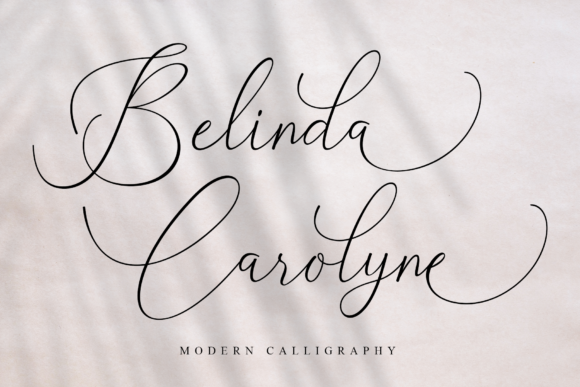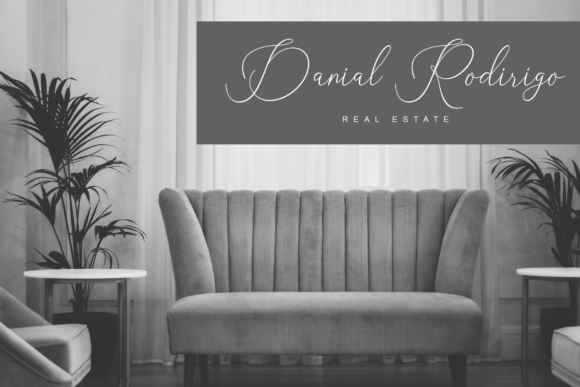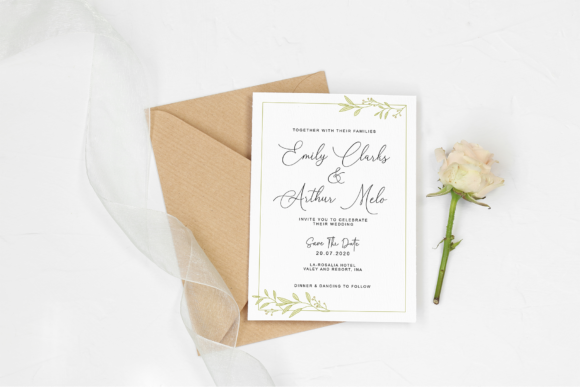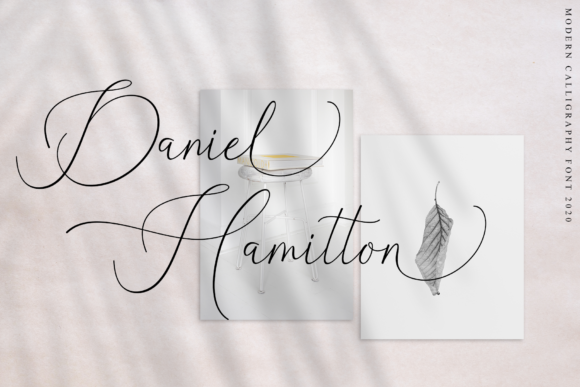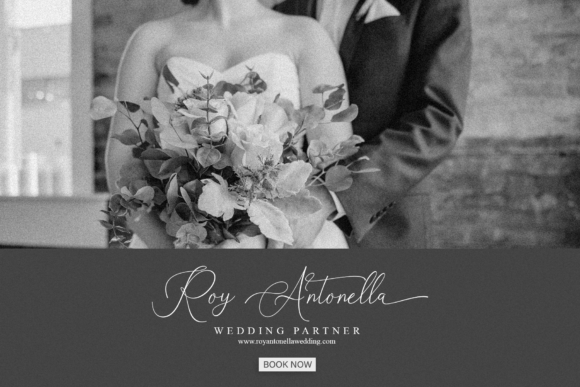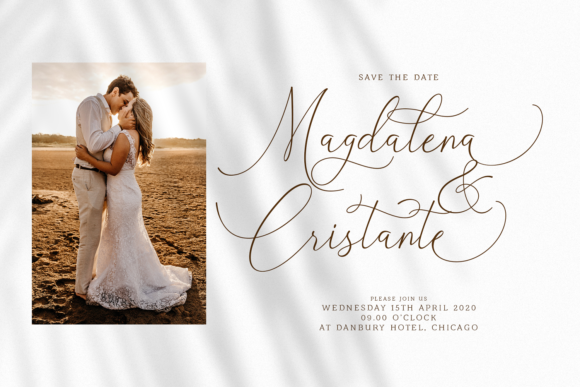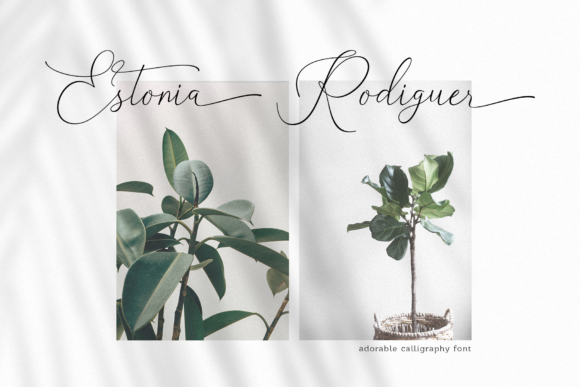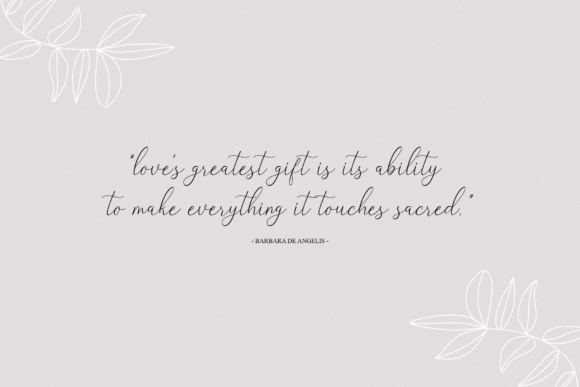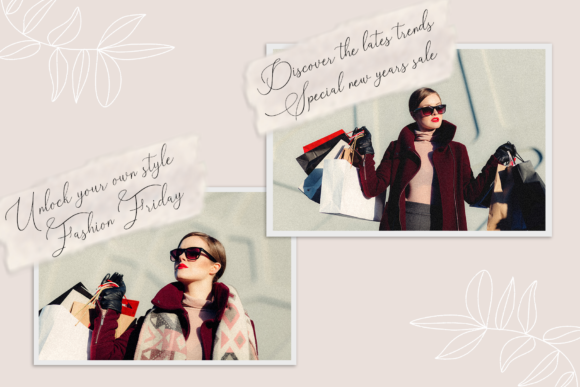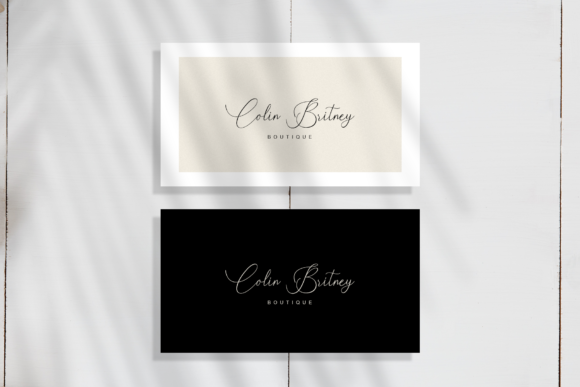
Belinda Carolyne Font
About Belinda Carolyne Font
Belinda Carolyne is a tasteful calligraphy font. It has beautiful swashes and ligatures that will add a romantic touch to any crafting project.